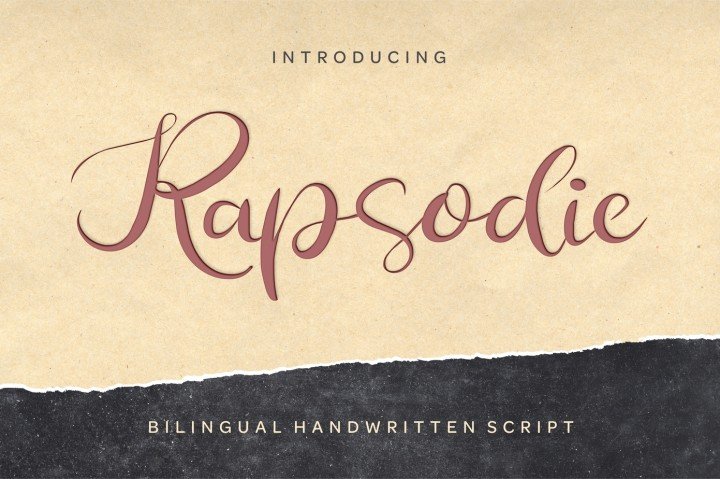
Rapsodie Script Font
A lovely bilingual handwritten script font – multilingual script with english and russian letters. Introducing Rapsodie Font. Rapsodie is new and attractive script prepared and constructed by hand. It has 300 symbols with English and Russian letters, numeric symbols and punctuation, multilanguage support, and extended list of advanced ligatures and more. You can use this font to create interesting designs, covers, shop and store name and logos. The font has been tested and compatible with any software and systems.